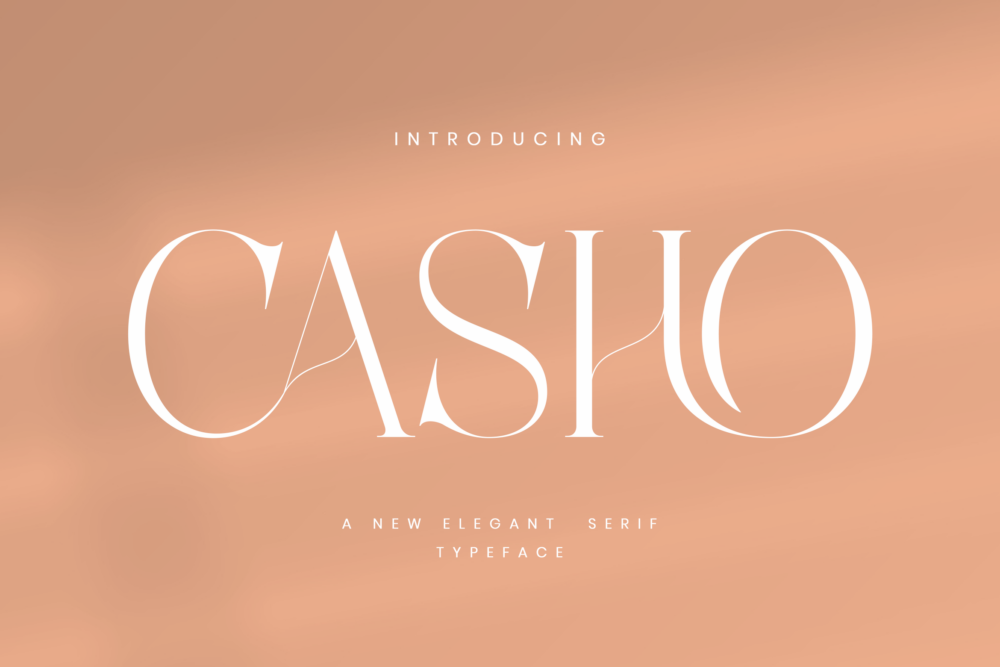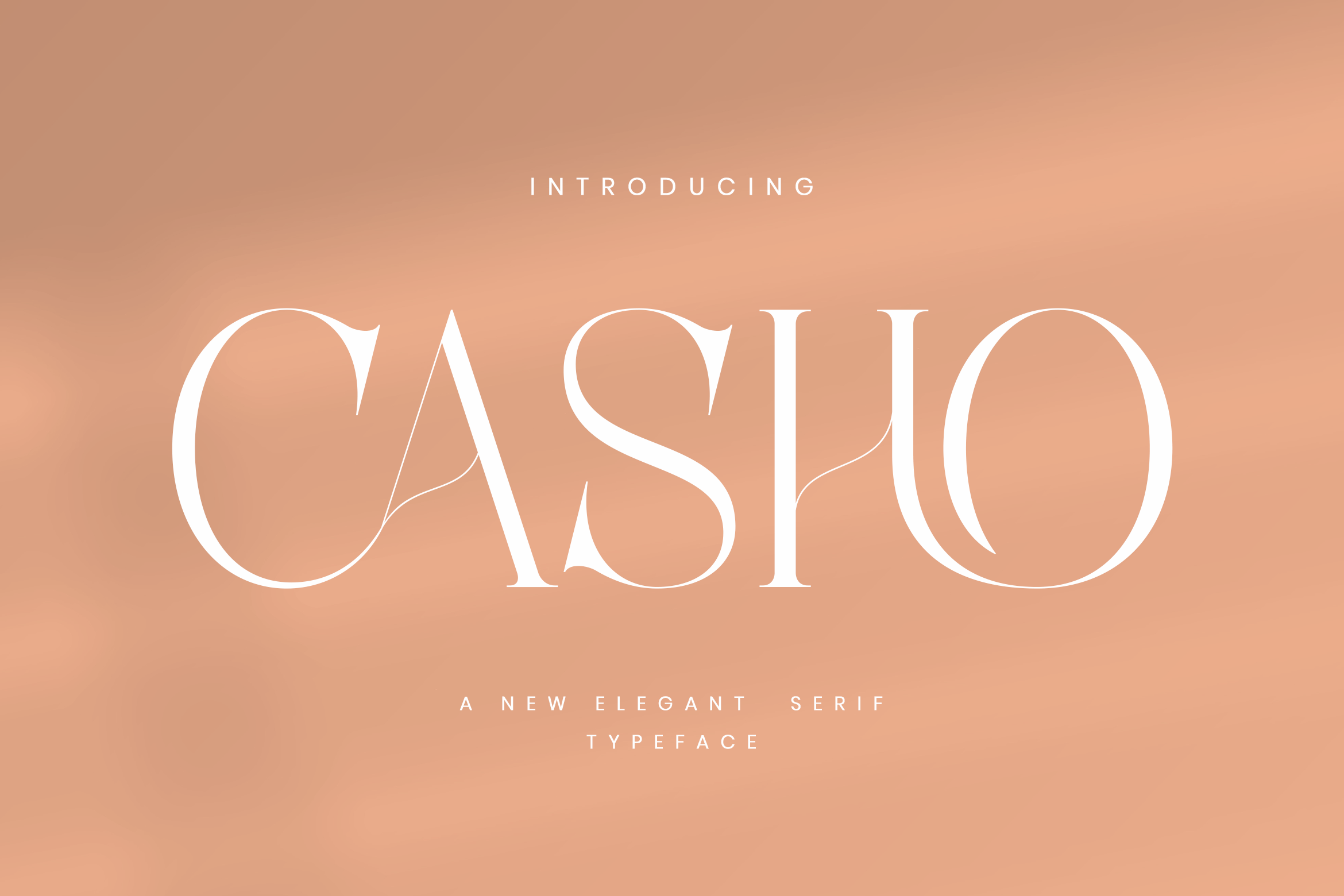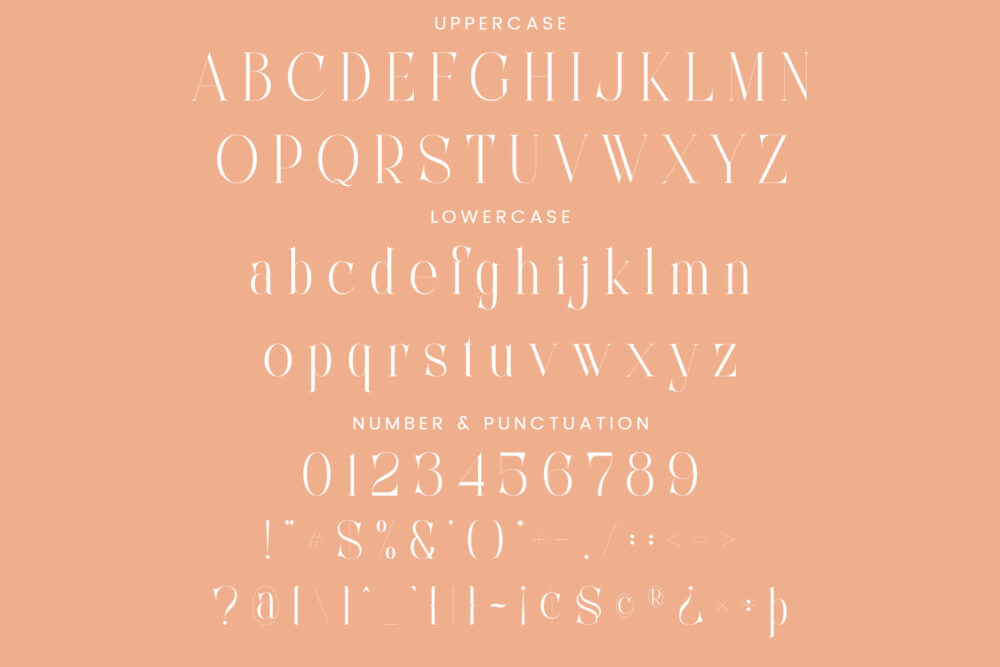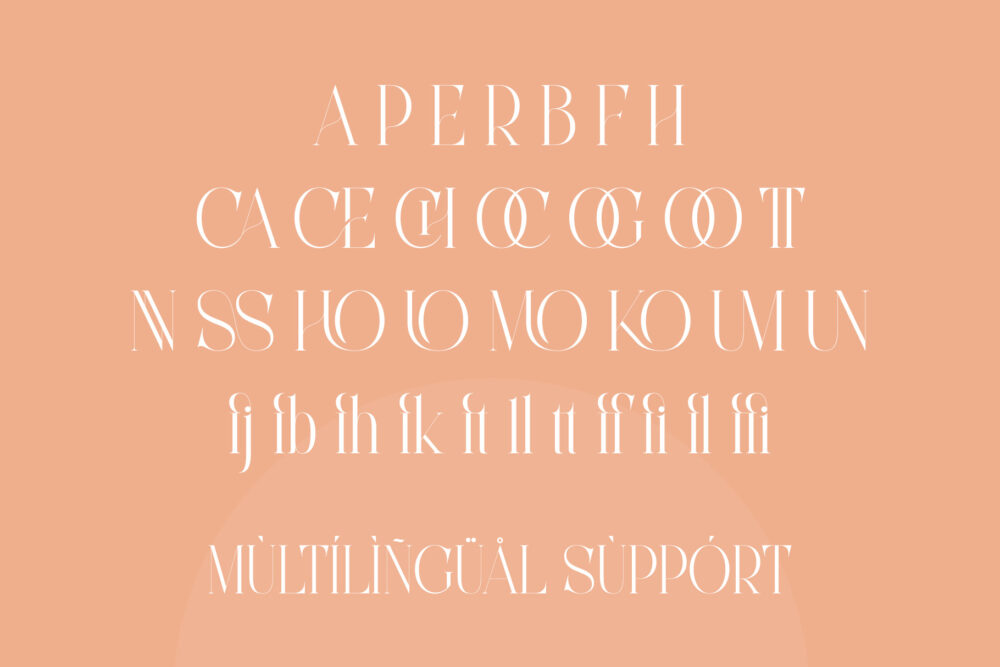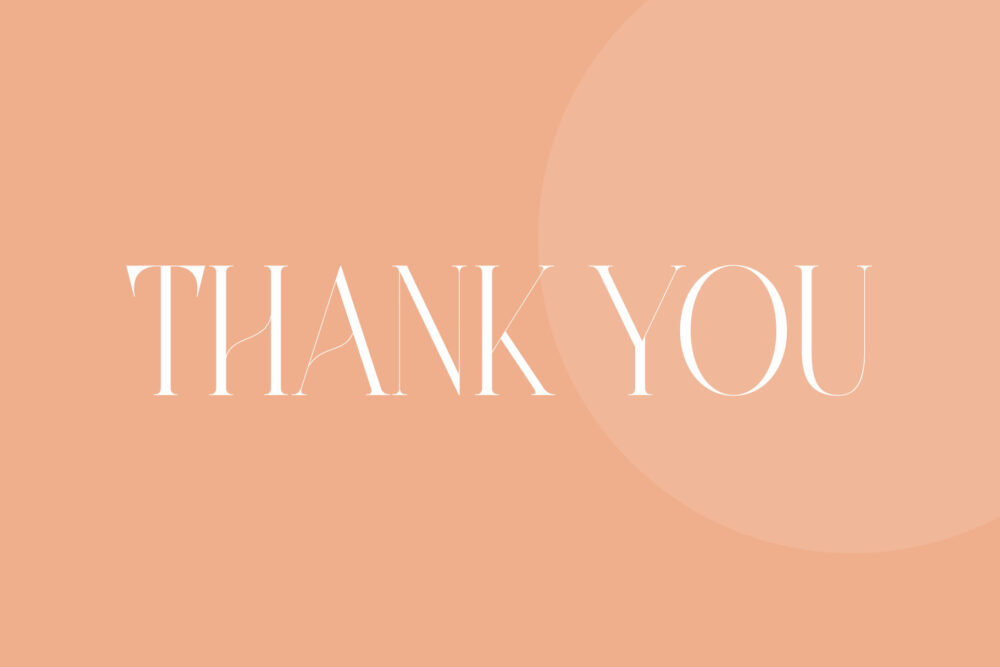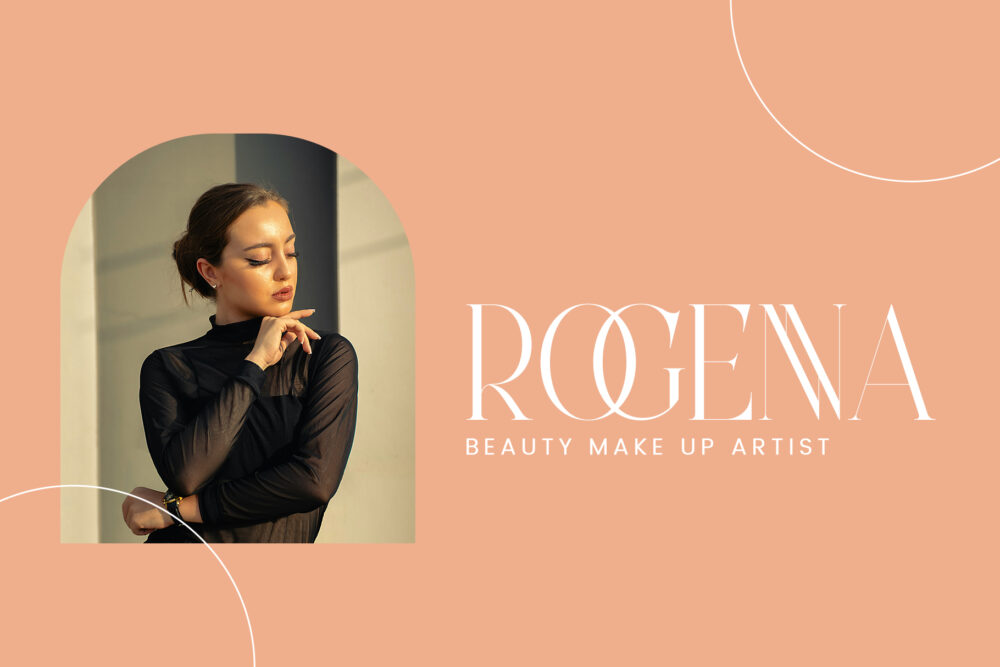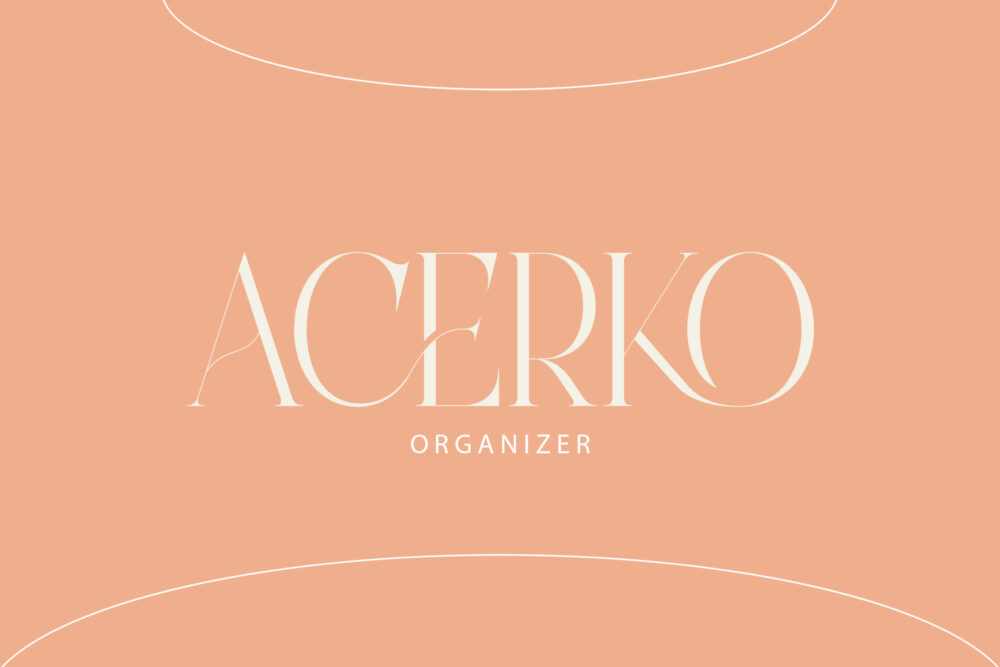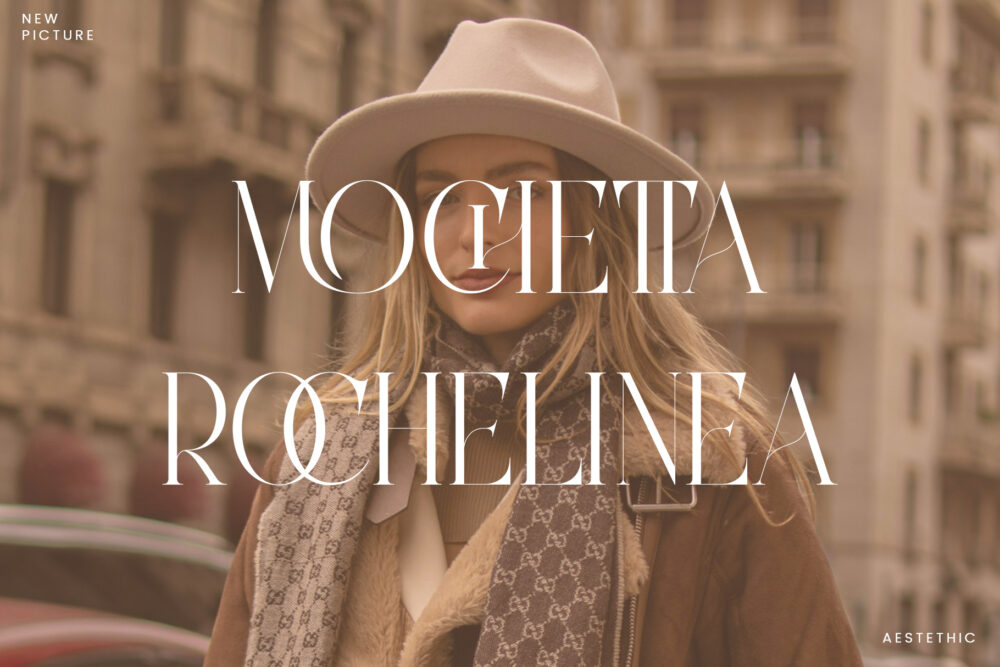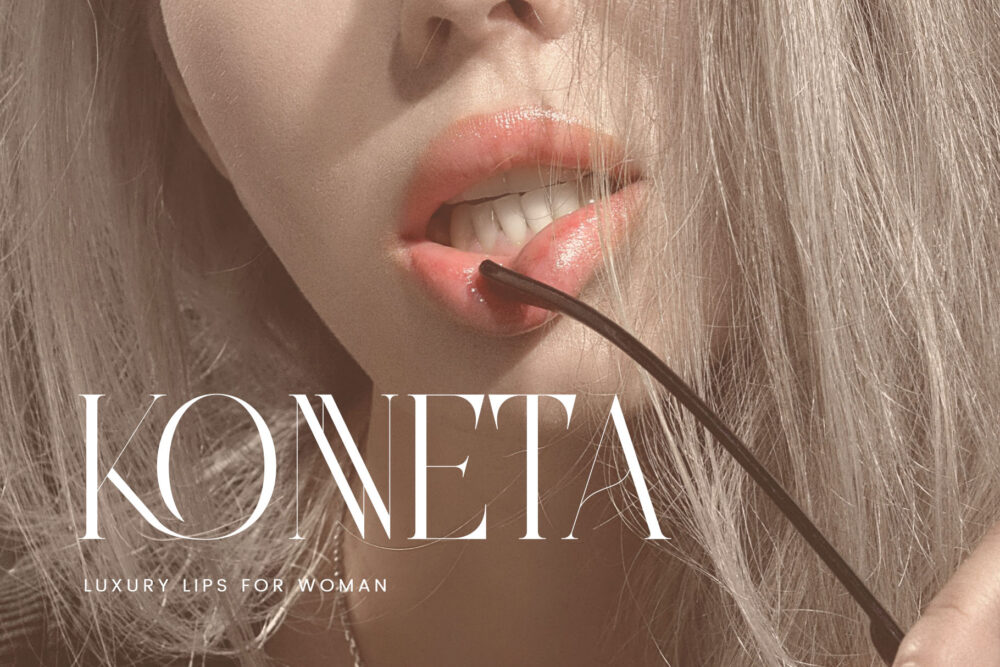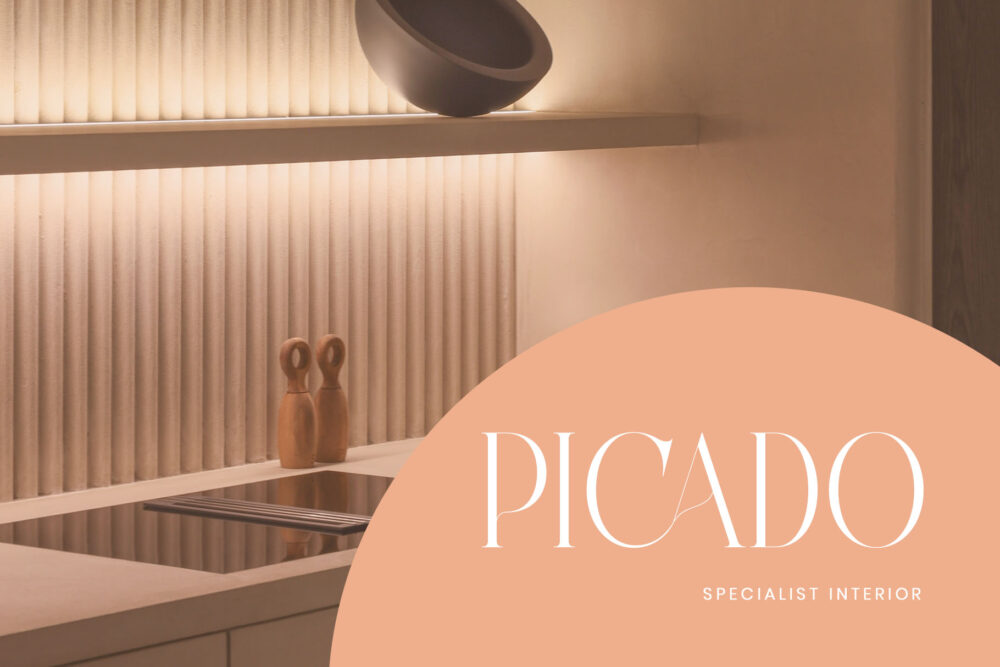
Casho
Casho Stylish Ligature Typeface, inspired by the famous minimalist logo perfect for the purposes of designing templates, brochures, videos, advertising branding, logos and more.
Casho – Elegant Serif Font